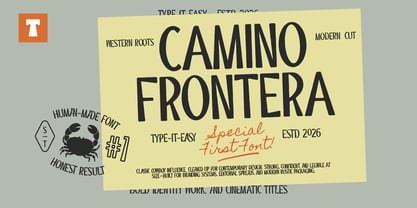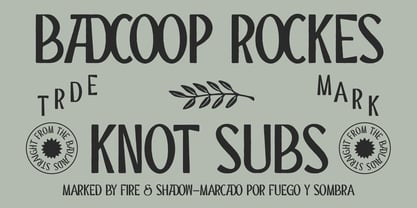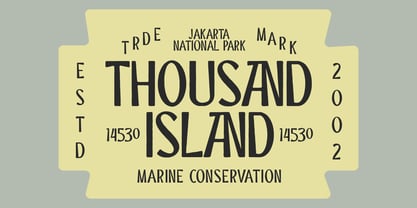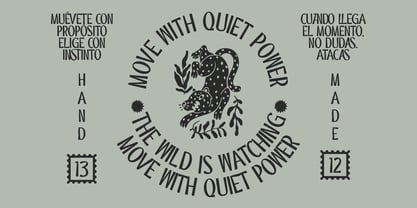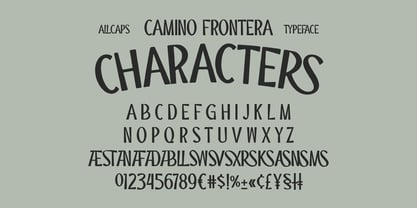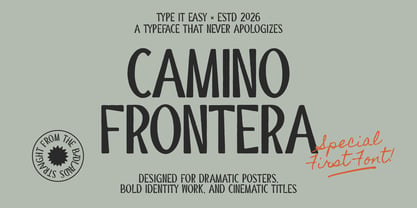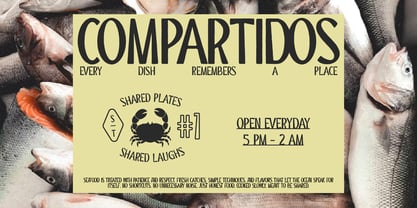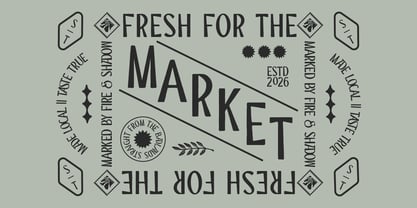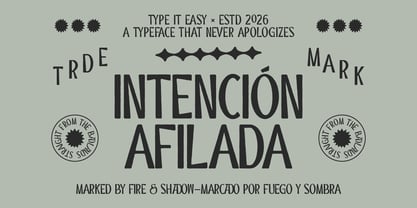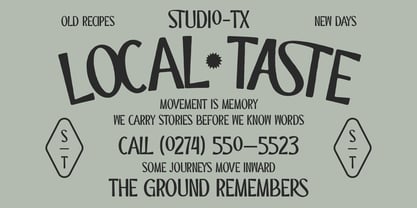
ST Camino Frontera
by Type it Easy
The ST Camino Frontera Font Family was designed by Agni Ardi Rein Prasetyo and published by Type it Easy. ST Camino Frontera contains 1 styles. More about this family
Capture the rugged spirit of the frontier with a modern, clean twist.
ST Camino Frontera is a hand-drawn, all-caps display font designed by Type it Easy. Rooted in classic western aesthetics but refined with a "modern cut," this typeface balances raw, honest character with professional legibility. It is the perfect choice for creators looking for a "human-made" feel in a digital world.
Whether you are building a brand identity for a coffee roastery, designing cinematic posters, or creating bold packaging for outdoor gear, ST Camino Frontera delivers a confident and dramatic presence.
Why Choose ST Camino Frontera?
• Distinctive Personality: A unique blend of western roots and contemporary design.
• Versatile Application: Optimized for branding systems, editorial spreads, and modern rustic packaging.
• Human Touch: Carefully crafted to maintain an "honest result" and organic texture.
• High Impact: Designed specifically for bold titles, cinematic headers, and dramatic posters.
Perfect for:
• Vintage & Modern Branding
• Logotype Design
• Social Media Graphics
• Apparel & Merchandise
• Film & Cinematic Titles
Designers: Agni Ardi Rein Prasetyo
Foundry: Type it Easy